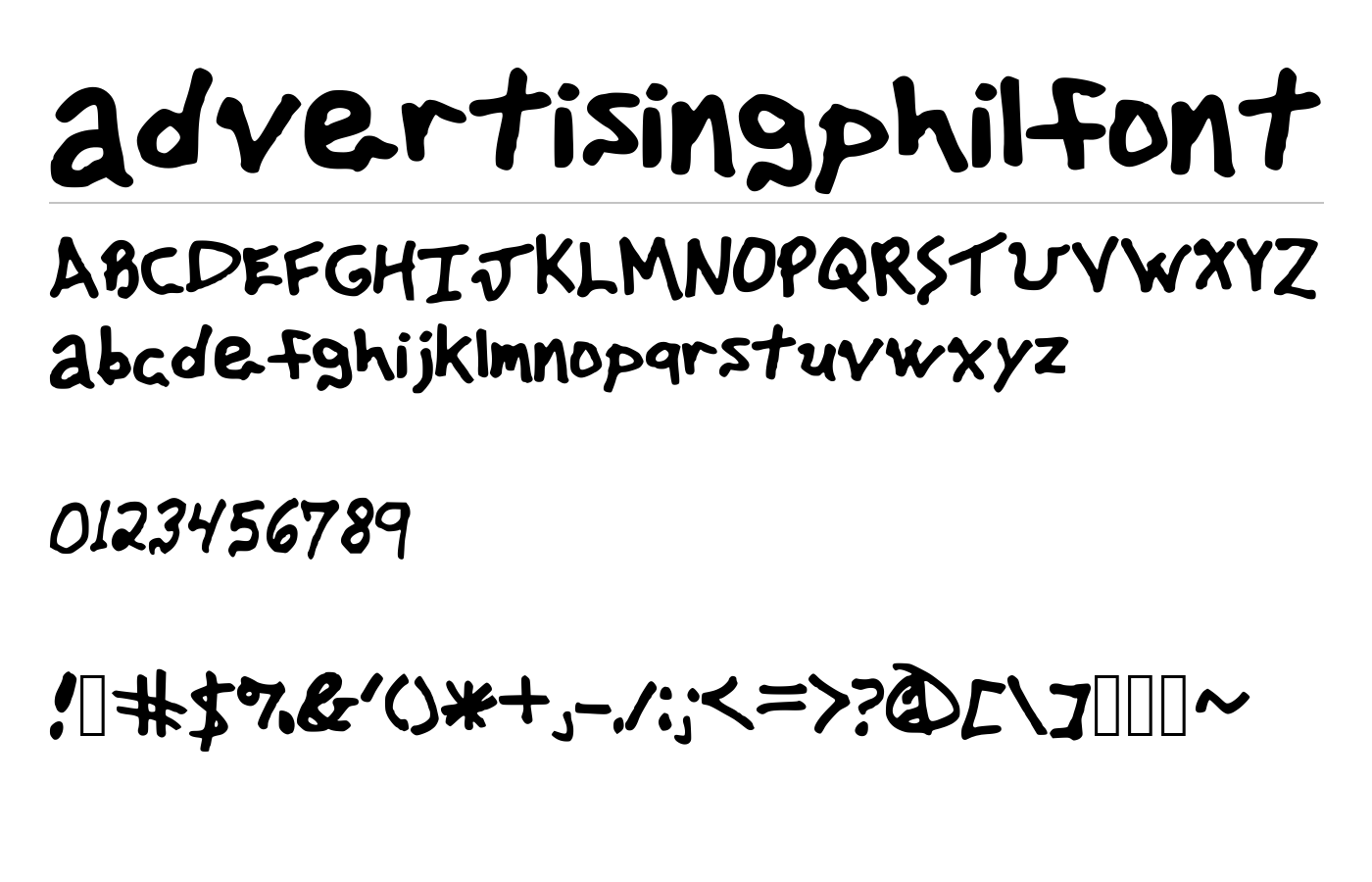
Advertisingphilfont is a playful, hand-drawn sans serif font with uneven strokes and quirky letterforms that give it a casual, creative feel. Its irregular shapes and lively personality make it ideal for informal branding, children’s products, or any project seeking a friendly, approachable look. This font works best in headlines and logos where its unique style can stand out and add a fun, personal touch.
advertisingphilfont
About advertisingphilfont